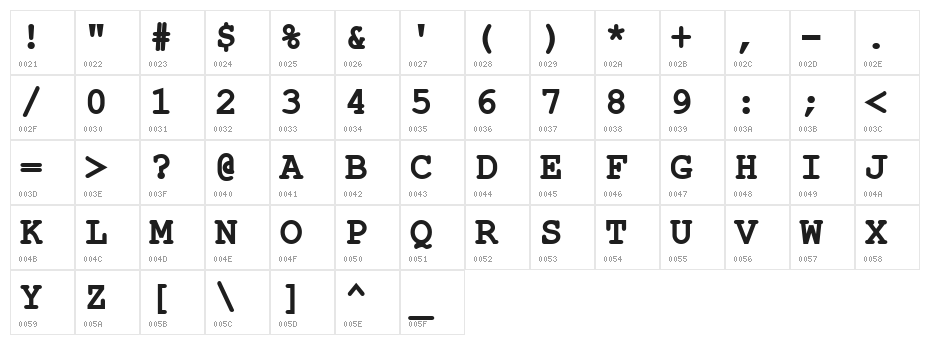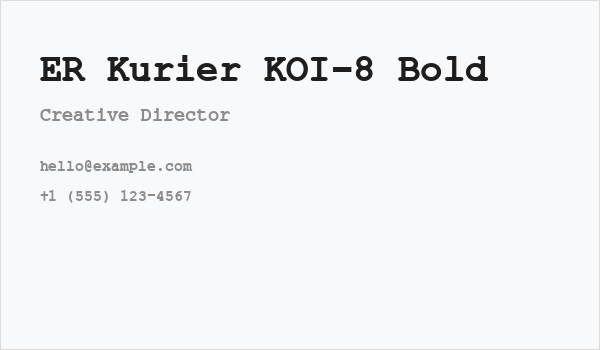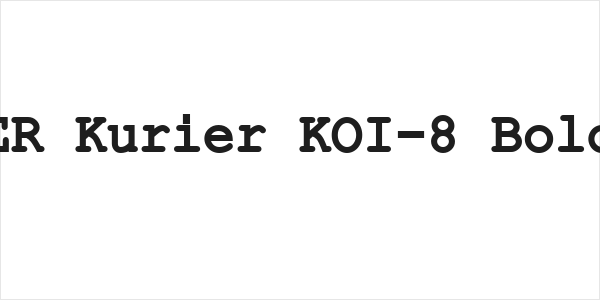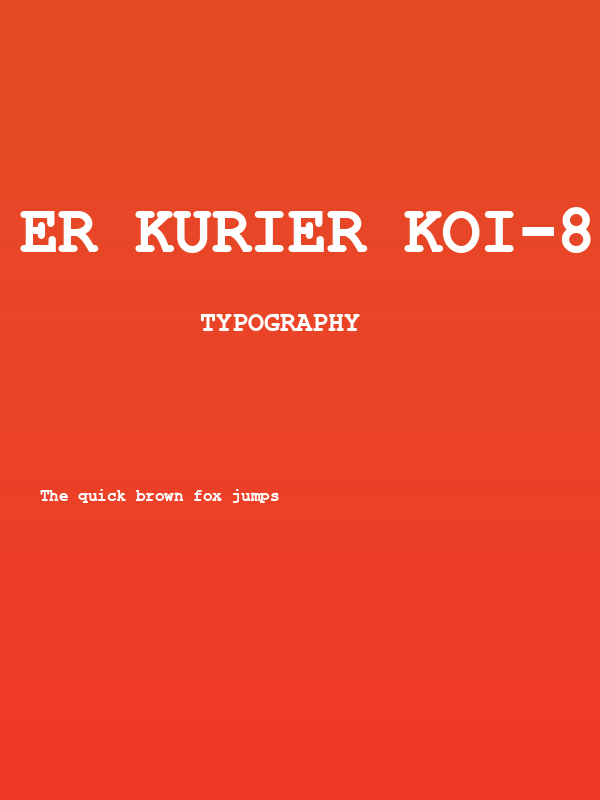
ER Kurier KOI-8 Bold Font
ER Kurier KOI-8 Bold Description
This typeface features a bold, slab serif design with strong, block-like serifs that give it a robust and authoritative appearance. The characters are evenly spaced, providing a clean and organized look. The uppercase letters are uniform in height, while the lowercase letters maintain a consistent baseline, enhancing readability. The numerals are distinct and clear, making them easily distinguishable. Special characters are well-integrated, maintaining the overall aesthetic of the font. The bold weight and slab serif style make it suitable for impactful and attention-grabbing text.
| Proposed Projects | Ideal for headlines, posters, branding, and any project requiring a strong visual impact. |